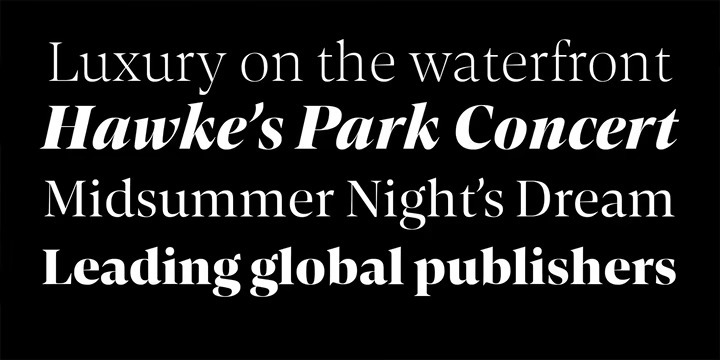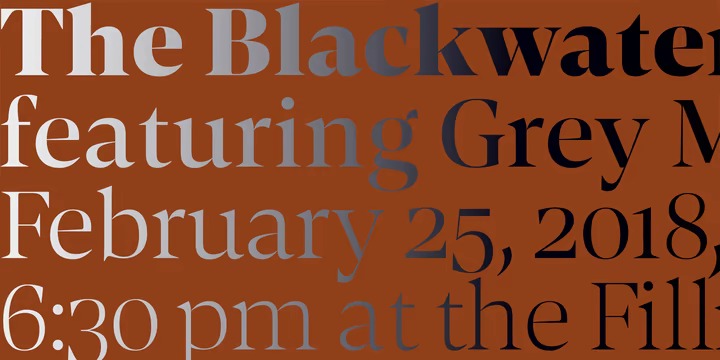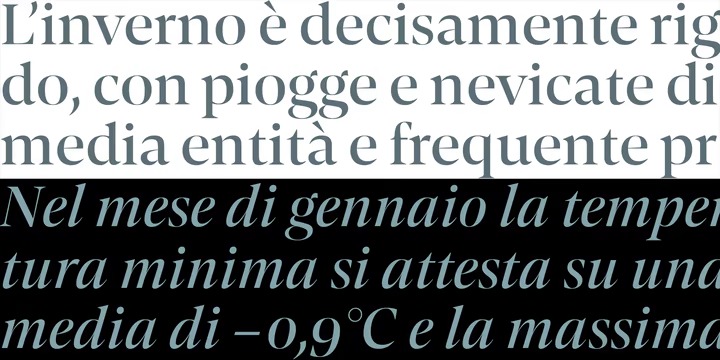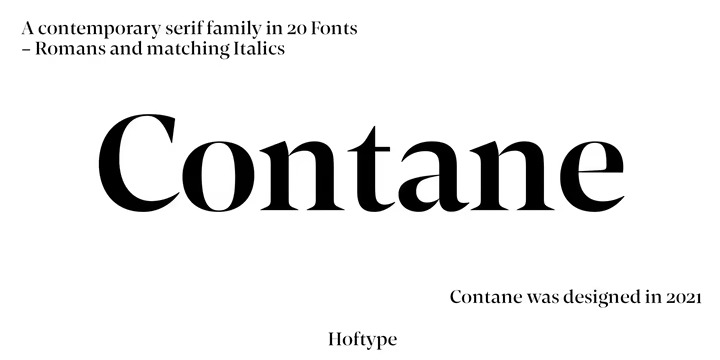
Contane Font Family
Contane Serif Font
This serif typeface was designed to be simple and neutral on text sizes, there descender proportions are short and the x-height is large. It is predestined for headlines, editorials and small text applications. All Italic weights also contain Swash Capitals for especially fancy occasions.
Contane supports up to 80 languages and it’s OpenType format allows a wide range of typographic applications. 20 styles offer fine graduation of the weights. All weights contain small caps, ligatures, superior characters, proportional lining figures, tabular lining figures, proportional old style figures, lining old style figures, matching currency symbols, fraction- and scientific numerals, matching arrows and alternate characters.